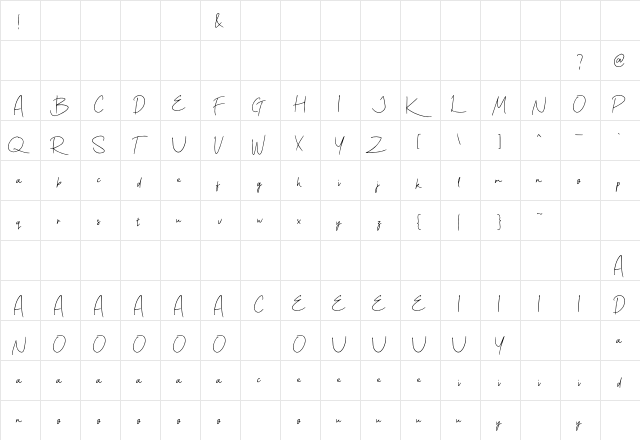
Minimalisty Demo Regular
| Foundry | Gartype Studio |
| Designer | Gumilang Anggara Ruslan |
Design Context for Minimalisty Demo Typeface
Minimalisty Demo offers clean, dependable letterforms without strong stylistic allegiance, making it a practical choice for designers who need flexibility.